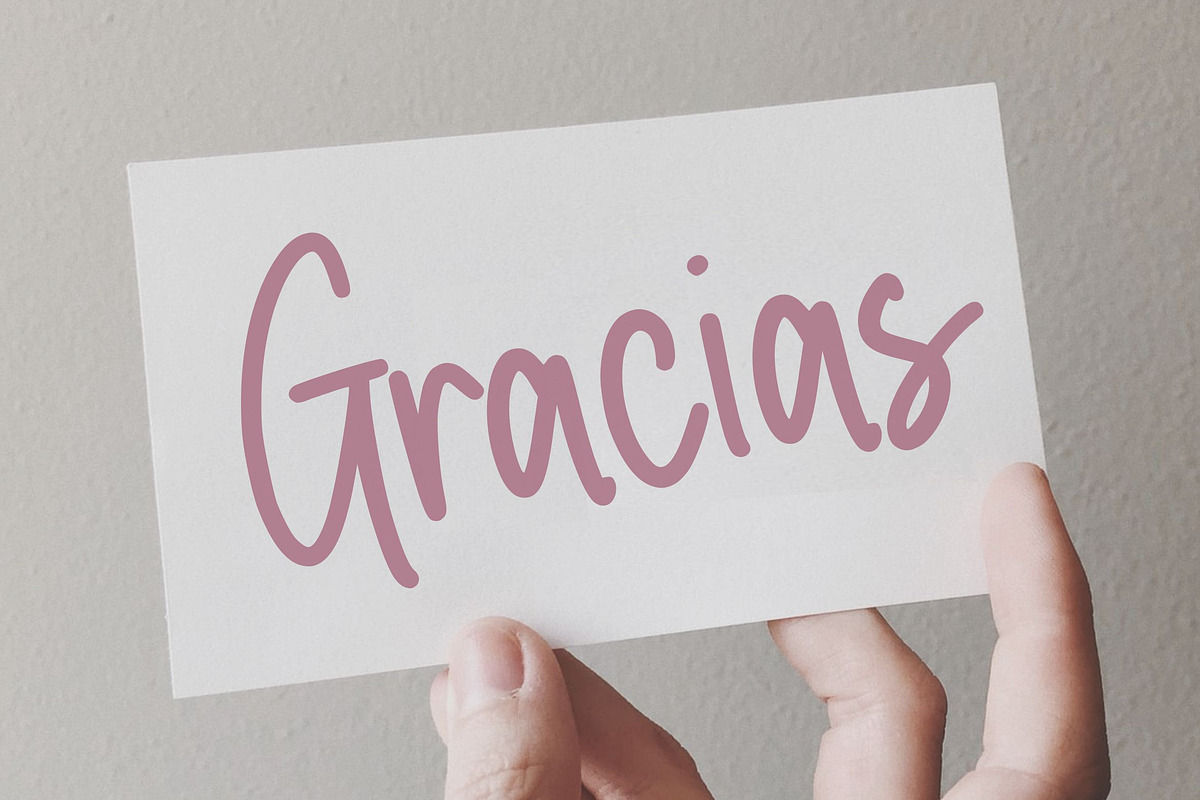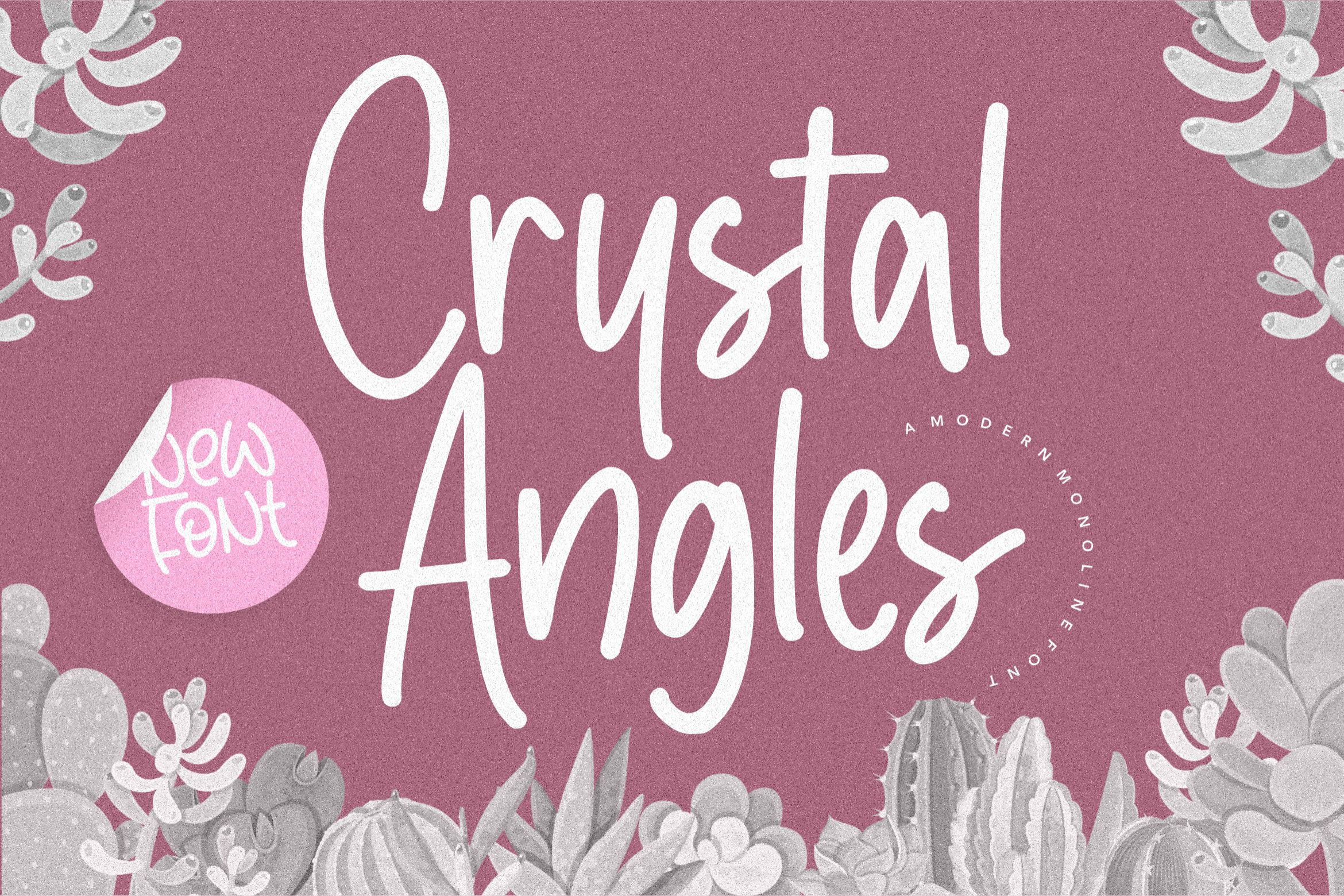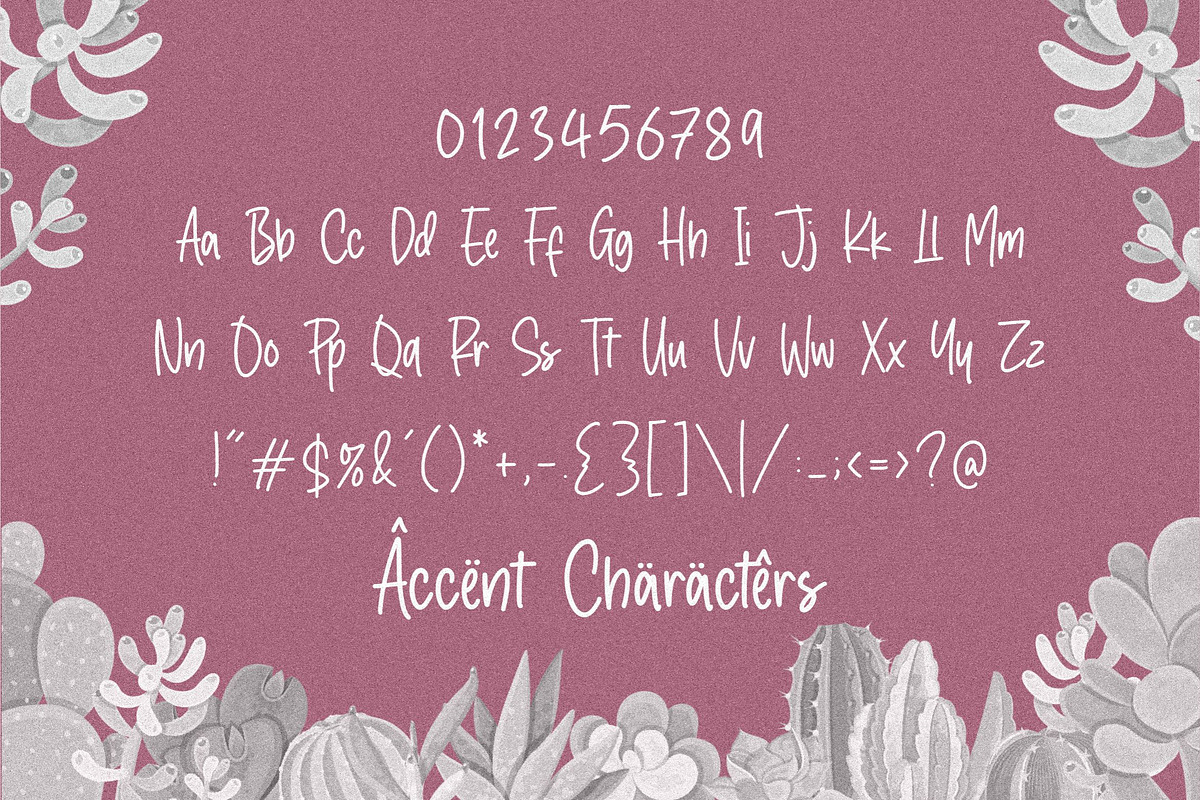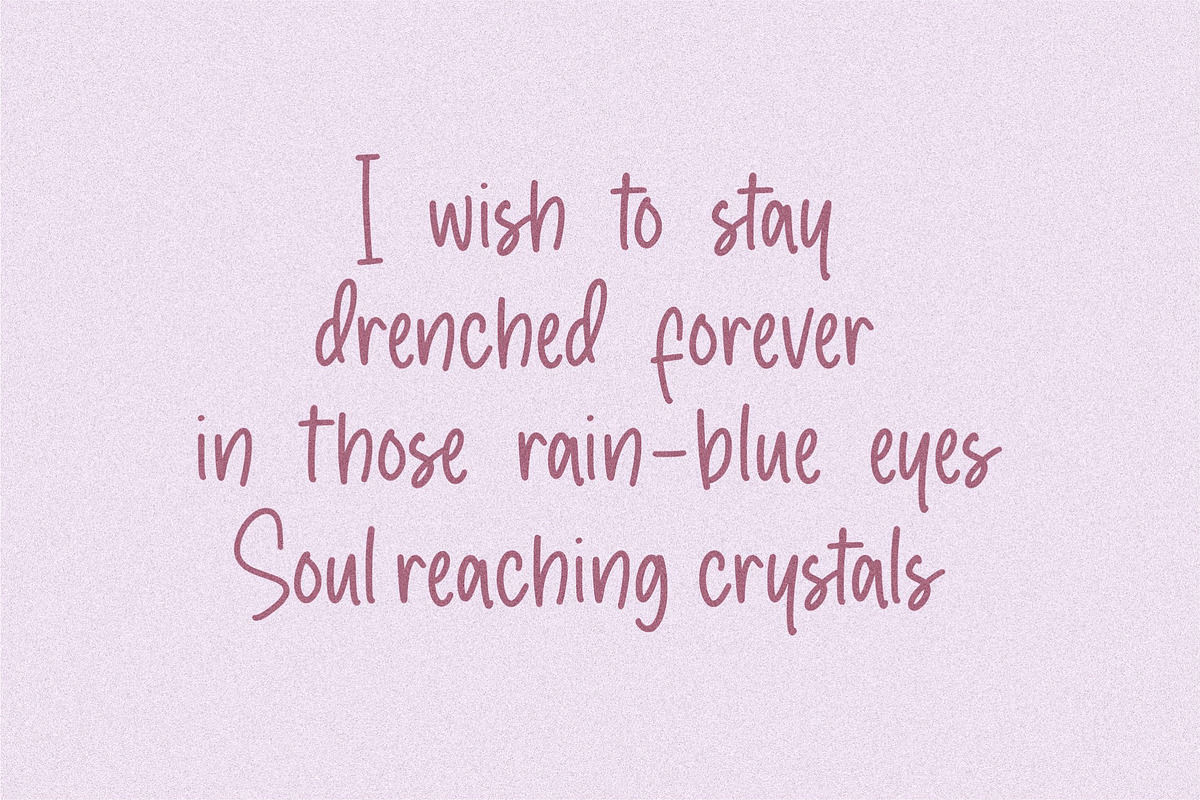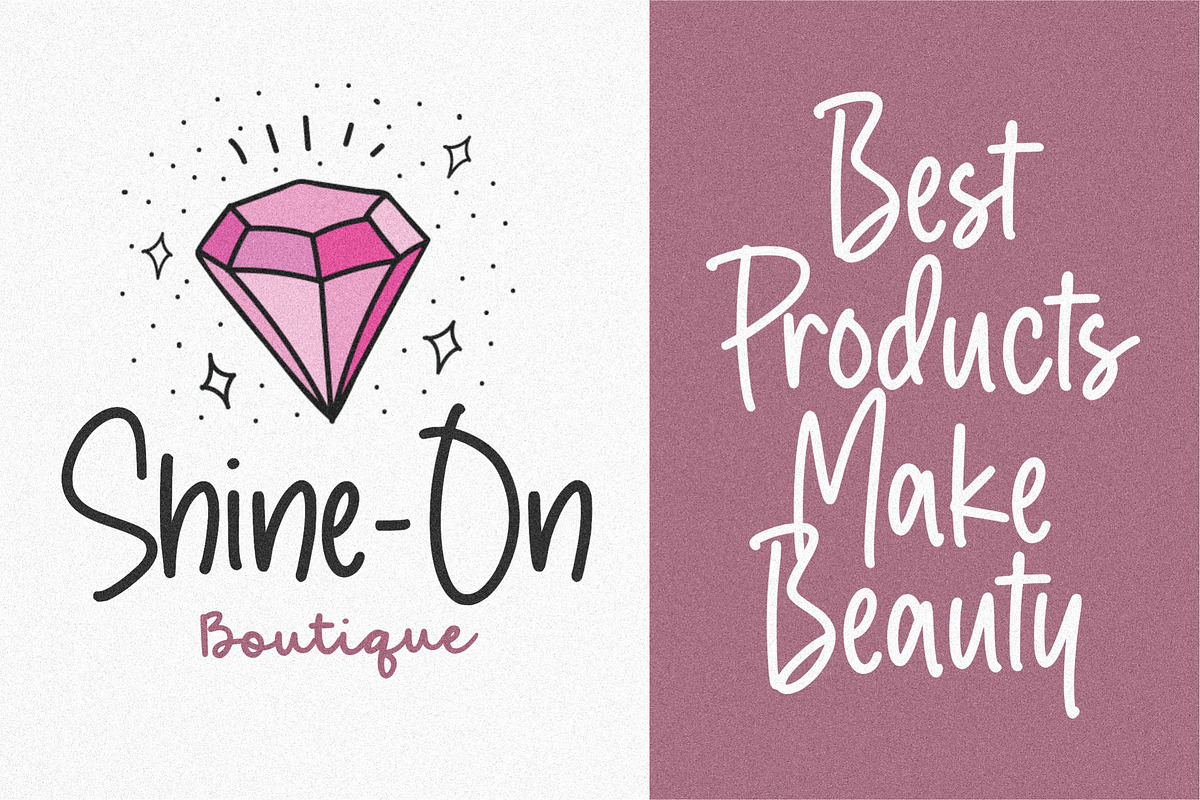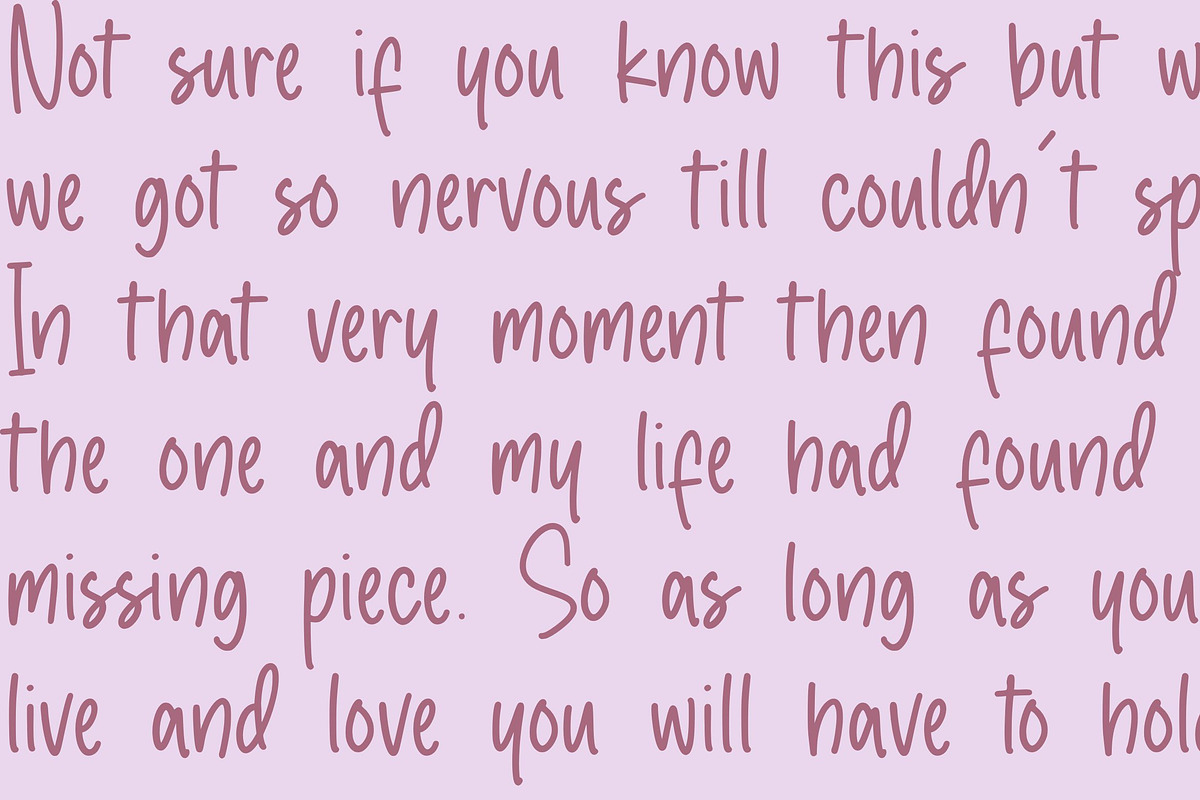
Crystal Angles Modern Monoline Font
Proudly Present, Crystal Angles Font
Crystal Angles is a sweet and relaxed handwritten font. It is perfect for product packaging, branding projects, magazines, social media, wedding designs, or just used to express words on a background.